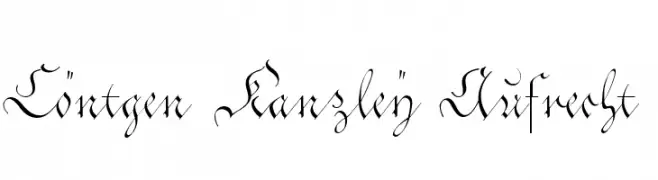
An ornate, historical script with intricate flourishes and a calligraphic style.
An ornate and decorative blackletter font with elaborate flourishes.
An elegant and sophisticated script font with high contrast and ornate flourishes.
An elegant and ornate script font with intricate flourishes.
A traditional blackletter font with ornate, angular letterforms and decorative flourishes.
A whimsical, cursive script font with elegant flourishes and loops.
A whimsical, handwritten font with artistic flourishes and dynamic line variations.
A graceful script font with fluid, cursive strokes and elegant flourishes.
A dramatic and ornate Blackletter font with intricate flourishes.